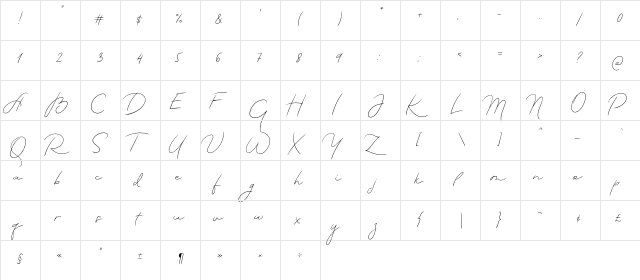
MADE TheArtist Script Regular
Design Context for MADE TheArtist Script Typeface
MADE TheArtist Script brings a calligraphic fluidity to the page — its connecting strokes and expressive curves give it an unmistakably human quality.
Font Pairing: Combine MADE TheArtist Script with a simple geometric sans for maximum contrast — the tension between flowing curves and clean structure is a classic typographic pairing.
Pro Tip: Use MADE TheArtist Script for short runs of text — names, titles, or taglines. Extended body copy in script faces tires the eye quickly.